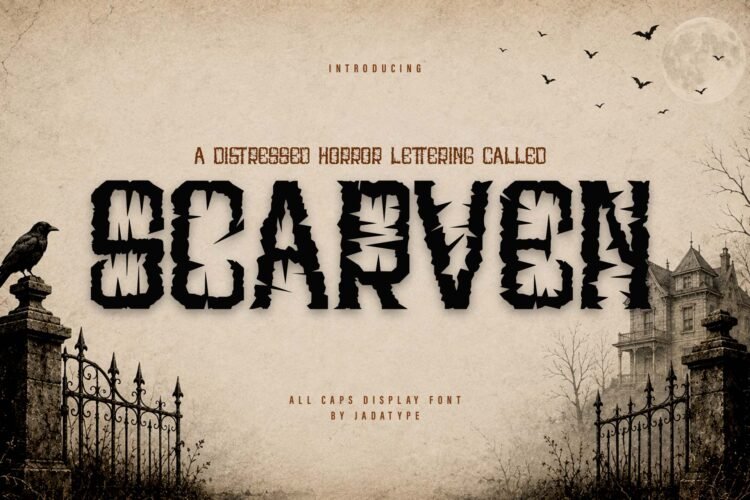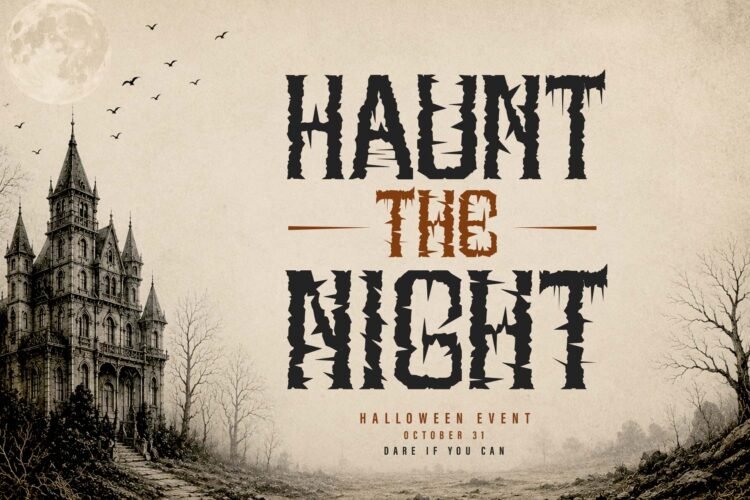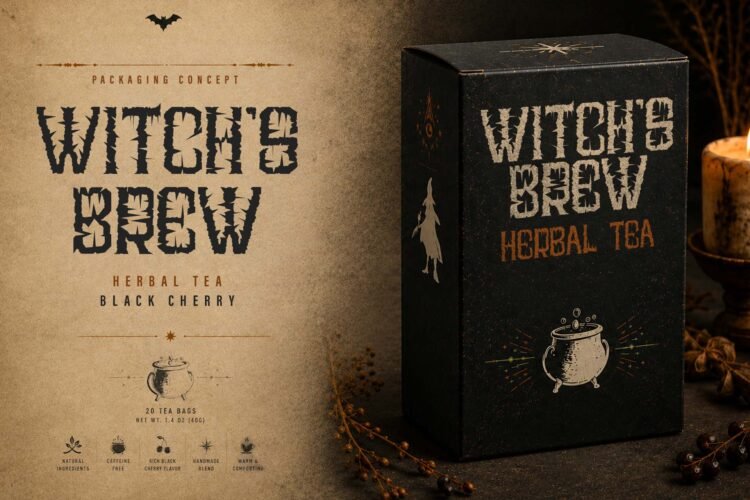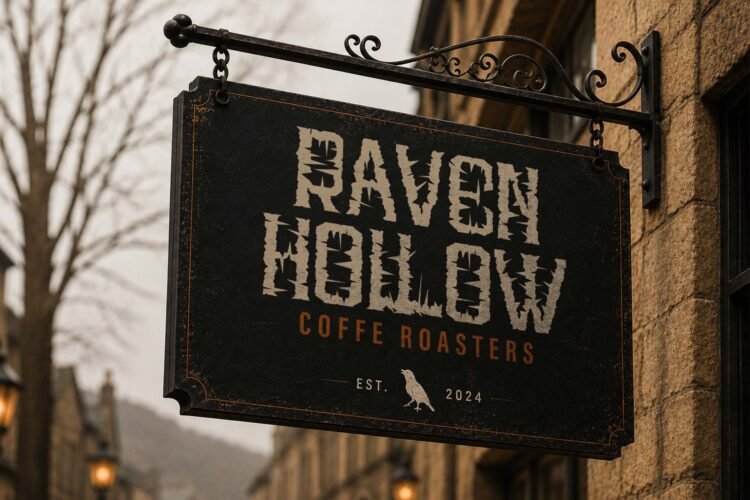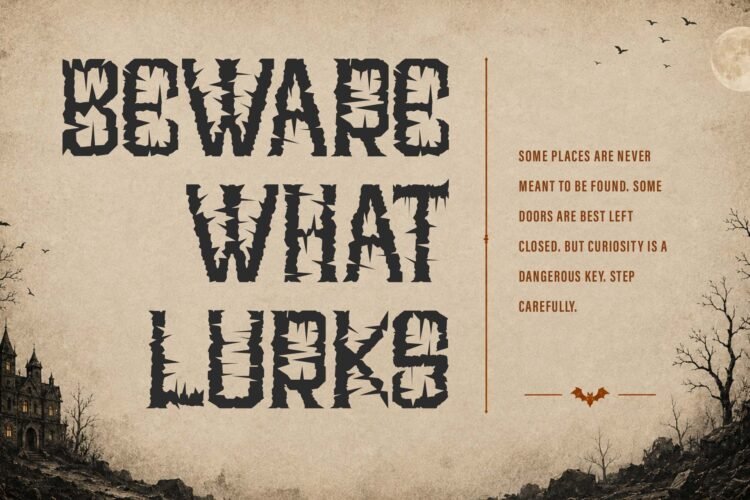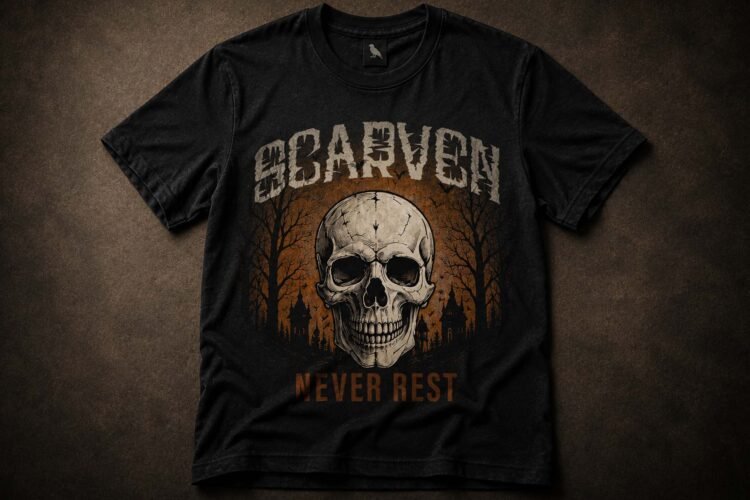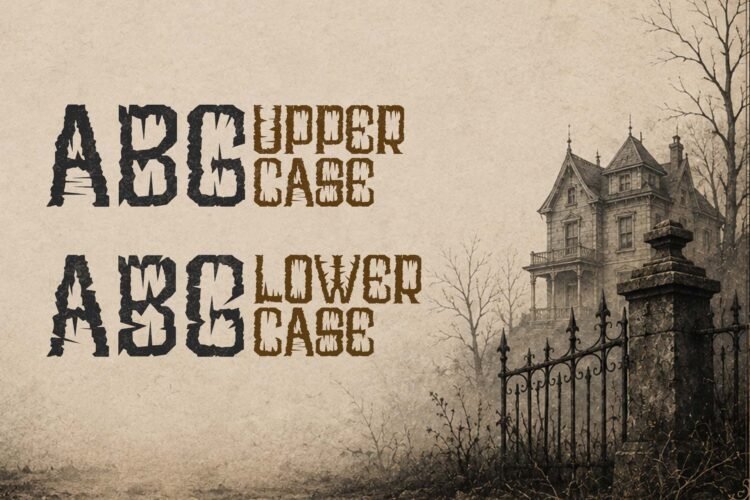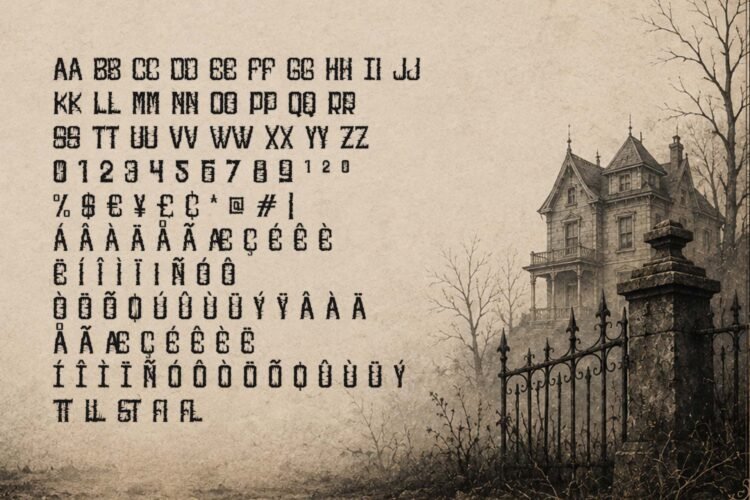
Scarven is a dark all-caps display font with a sharp, distressed character inspired by gothic, horror, and Halloween aesthetics. Its heavy letterforms and jagged details create an intense visual presence, giving headlines a rough, ominous, and rebellious personality.
Perfect for branding, logo design, horror posters, album artwork, book covers, event graphics, social media designs, packaging, headlines, and other dark-themed display projects. The font includes standard letters, numbers, punctuation, and accented characters for multilingual support. Designed by Jada Akbal and published by Jadatype.
• Sharp, distressed gothic display letterforms